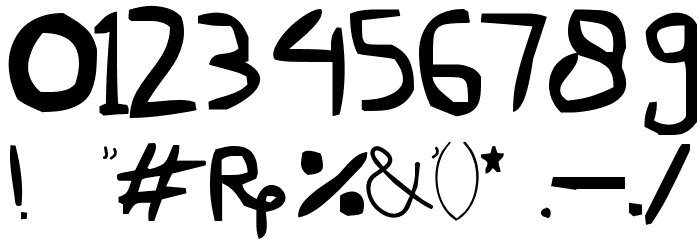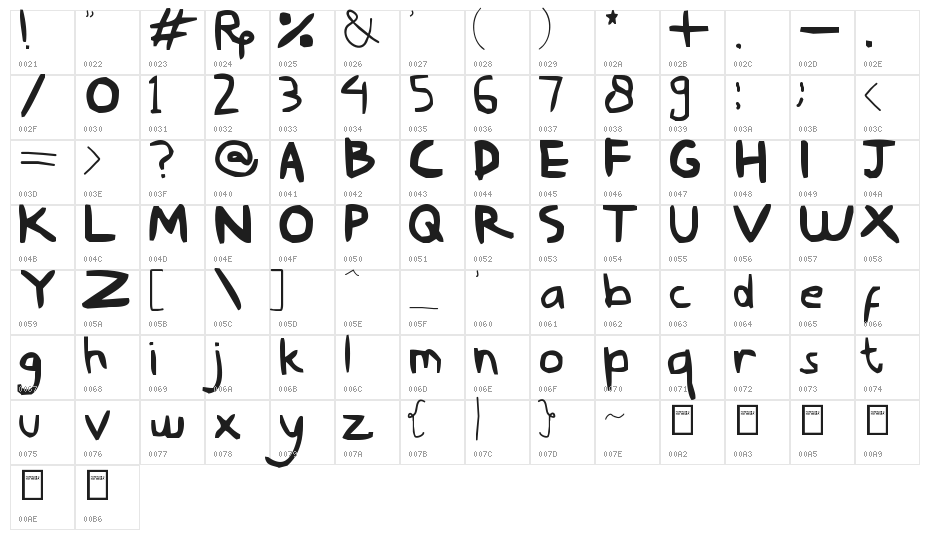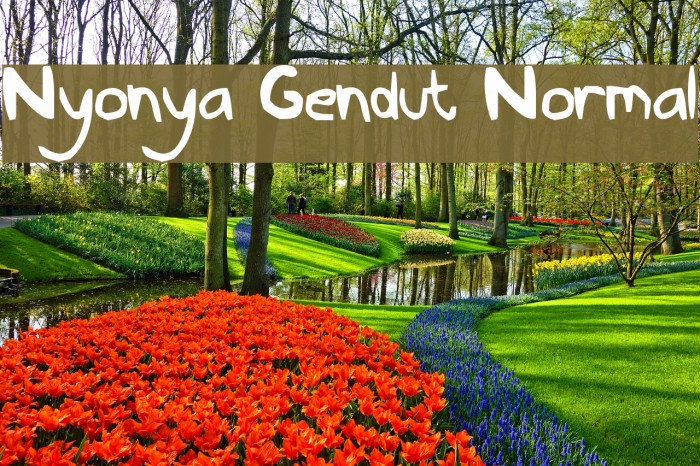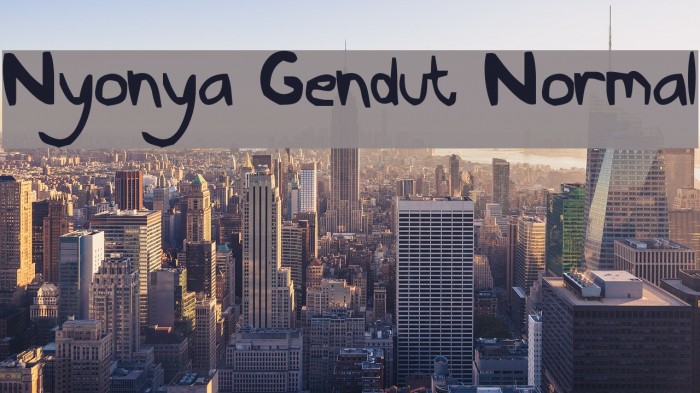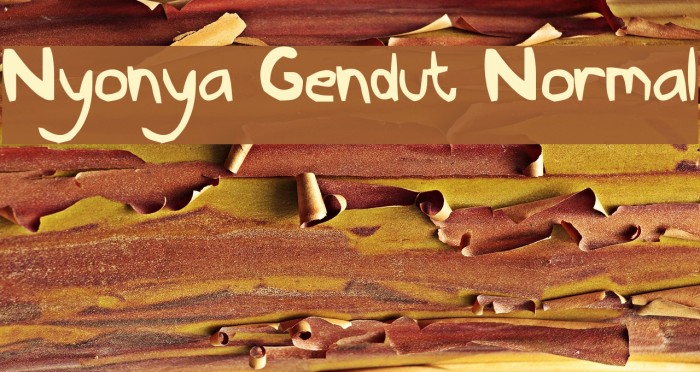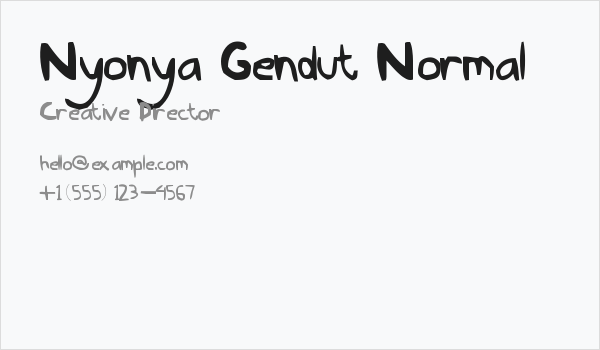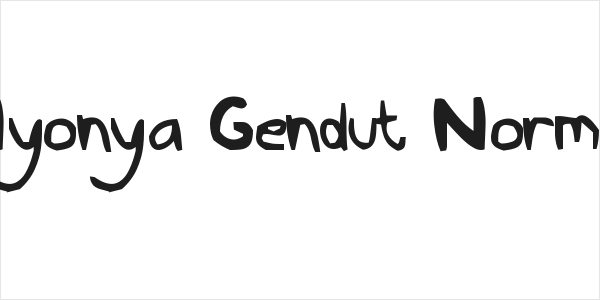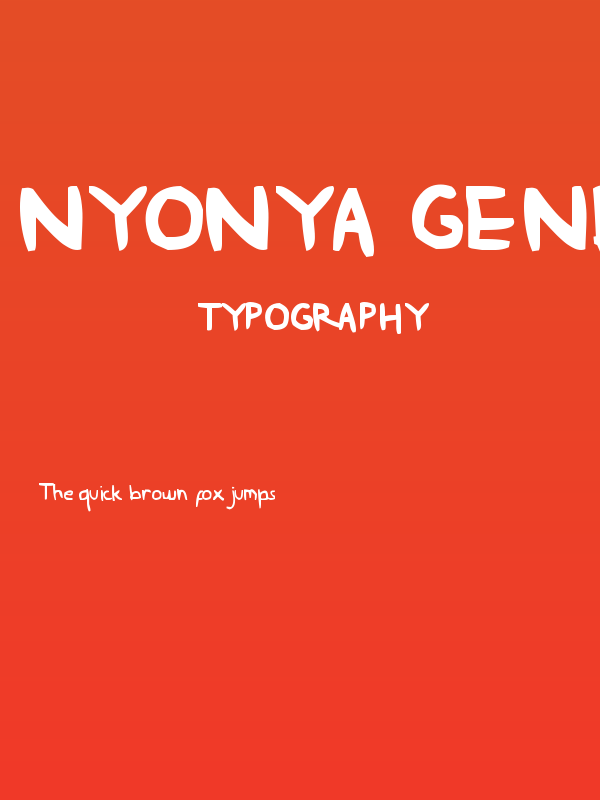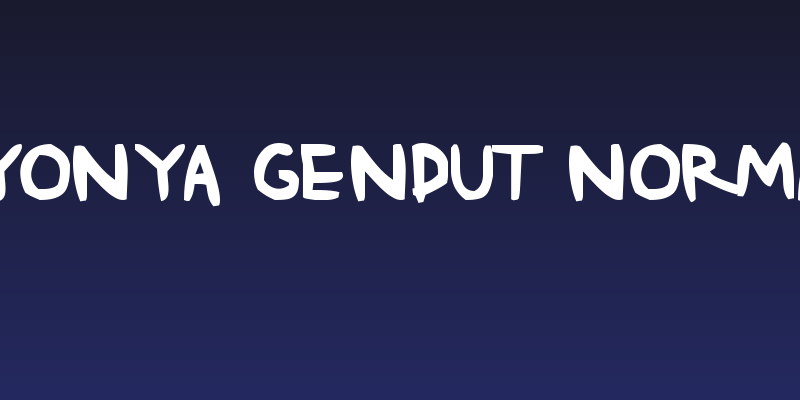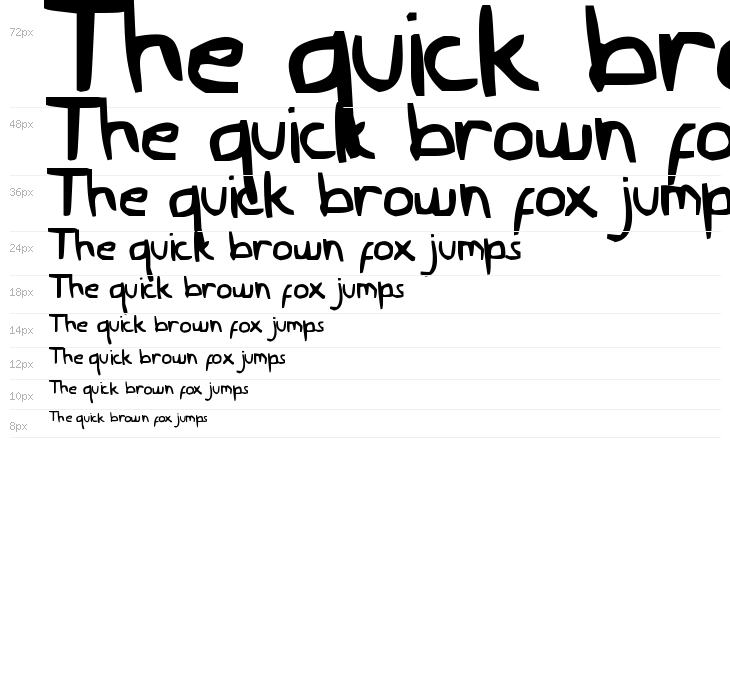
Nyonya Gendut Normal Font
This font features a playful and bold handwritten style, characterized by its thick strokes and slightly irregular shapes that give it a lively and informal appearance. The uppercase letters are robust and slightly condensed, while the lowercase letters maintain a consistent flow with a touch of whimsy. The numbers are bold and rounded, matching the overall playful theme. Special characters are creatively designed, adding to the font's unique personality. This font is perfect for projects that require a fun and approachable aesthetic.
| Proposed Projects | Ideal for children's books, playful branding, casual invitations, and creative posters. |